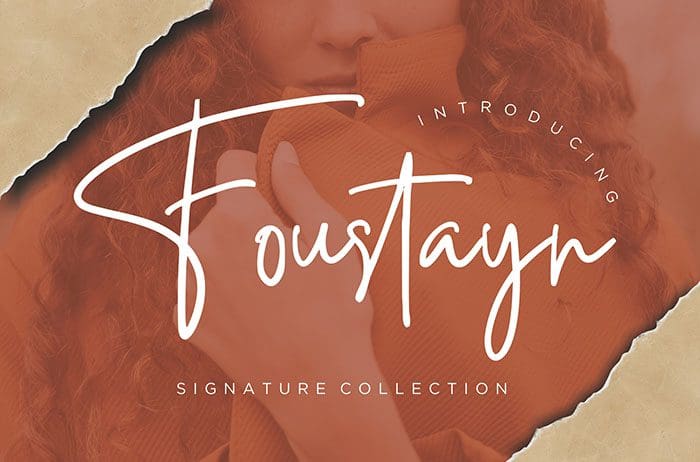
Foustayn Script Font
Foustayn is a signature Script Font collection that perfect for your awesome project. Foustayn is perfect for branding projects, logo, invitation, and more. Thanks to Creatype Studio for sharing this font! Take a look at this portfolio for more of his stunning fonts.